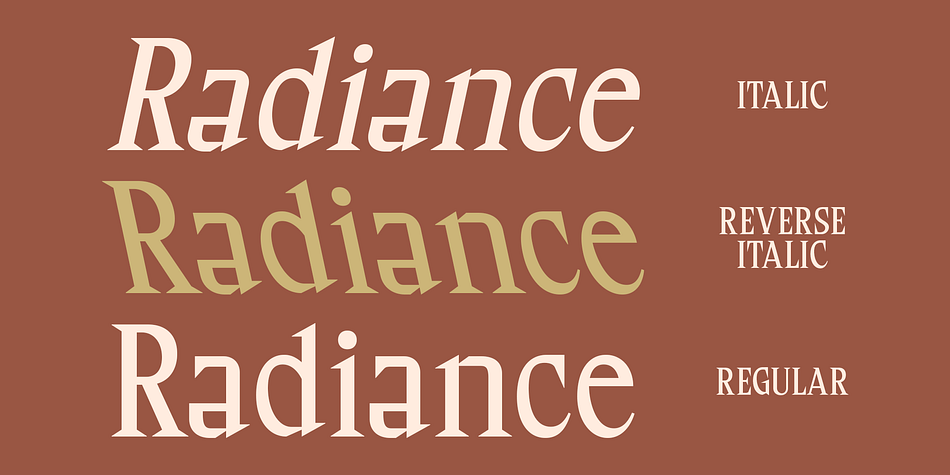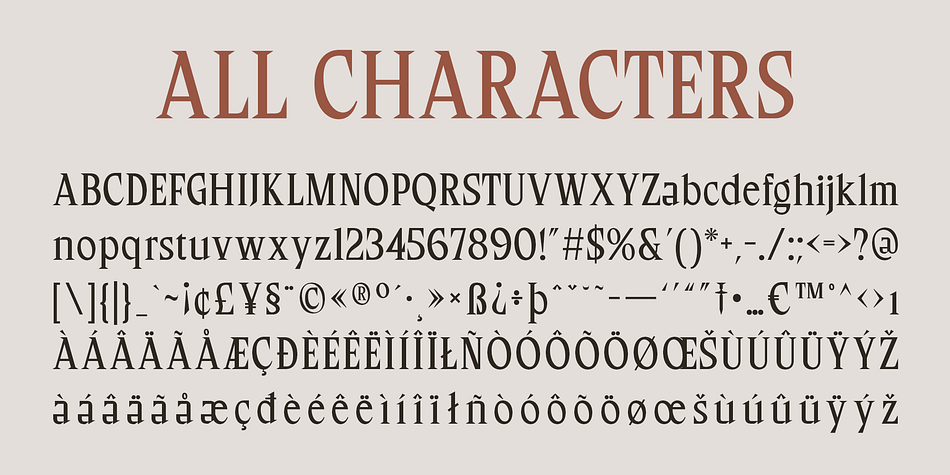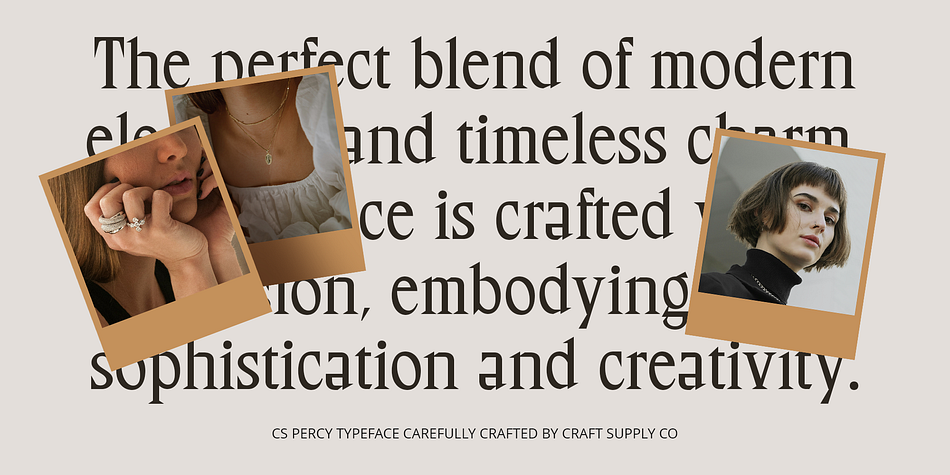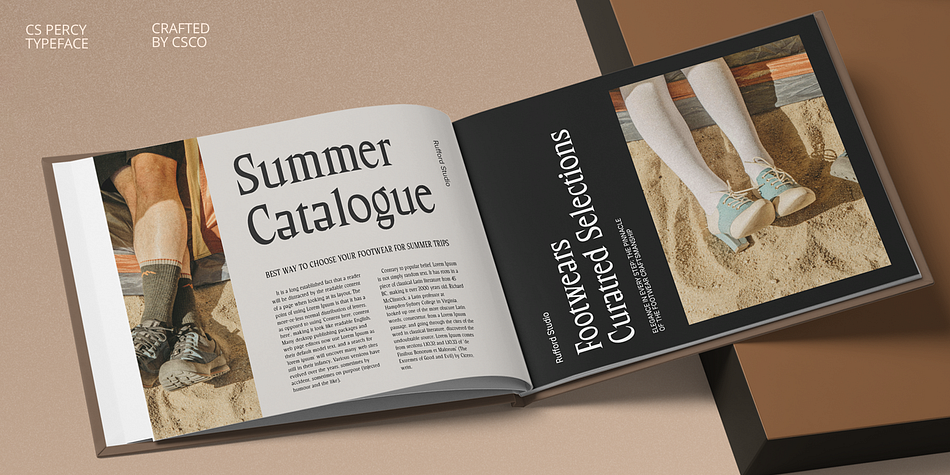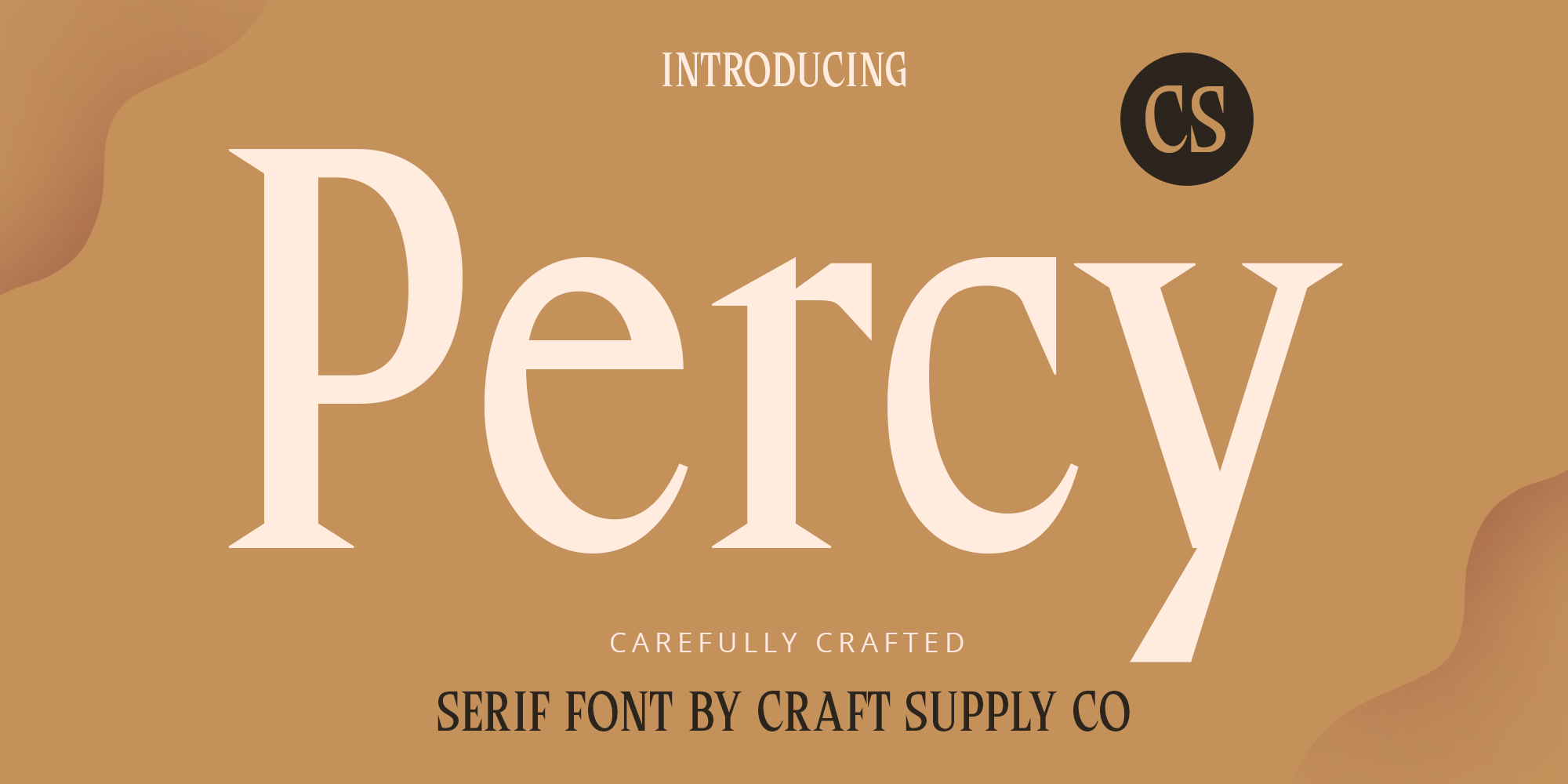
CS Percy
CS Percy is a serif font family. This typeface has three styles and was published by Craft Supply Co.
CS Percy – Serif Font: Timeless Elegance with a Modern Twist
Classic Serif with Unique Design Elements
CS Percy is a serif font that masterfully blends traditional serif characteristics with modern design touches, creating a unique and classic vibe. Featuring ornamental details, elegant classic lines, and creative design elements, this font stands out by offering a blend of timeless sophistication and distinctive character. Its classic appeal is enhanced by subtle modern nuances that set it apart from other traditional serif fonts.
Enriched with Distinctive Character
With its rich ornamental details and refined lines, CS Percy exudes a sense of timeless elegance. The font’s design combines traditional serif elements with creative flourishes, making it an ideal choice for projects that require a classic yet distinctive look. Its unique features provide an added layer of sophistication, ensuring that your designs capture attention with both style and grace.
Perfect for Branding and Editorial Design
CS Percy excels in applications where a blend of classic sophistication and modern uniqueness is desired. Whether you’re working on branding, editorial design, or any project that needs a touch of attractive classic charm, this font provides the perfect balance. Its elegant and distinctive design makes it ideal for creating impactful and memorable visuals that resonate with timeless beauty and contemporary flair.